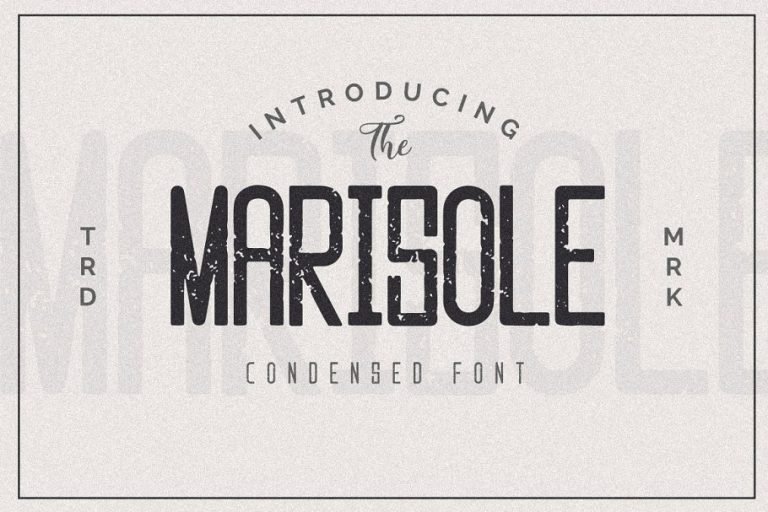
Marisole Typeface
A high contrast display typeface. It will fit all your design projects. It’s a very versatile font that works great in large and small sizes. Introducing Marisole Font. Marisole Typeface is condensed sans serif textured font. Each letters have a different textured and bold giving a more rugged vibe for whisky packaging.
This font is a versatile sans serif typeface that gives a vintage aesthetic. It’s perfect for whisky label, alcohol label, liquor label, cosmetic packaging and more. It’s give you the retro feeling everytime you use it.